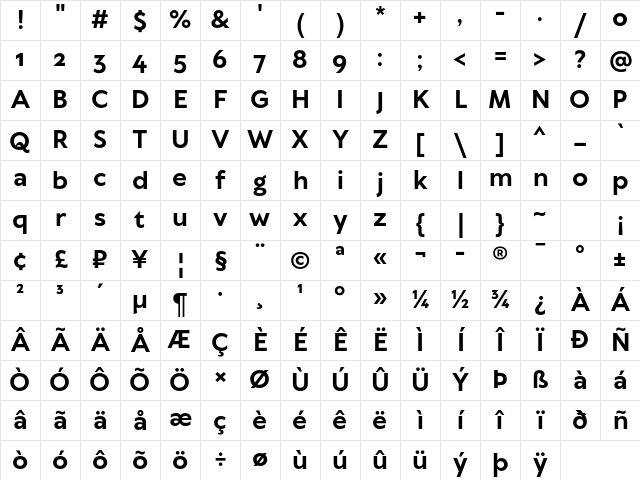
TT Wellingtons Trl Bold
Designer: TypeType
Complete TT Wellingtons Trl Bold glyph index. Displaying only characters natively supported by TT Wellingtons Trl Bold font.
Design Context for TT Wellingtons Trl
TT Wellingtons Trl is a composed and adaptable typeface that performs quietly and consistently across a wide range of design contexts. Its bold stroke weight gives it real presence on the page.